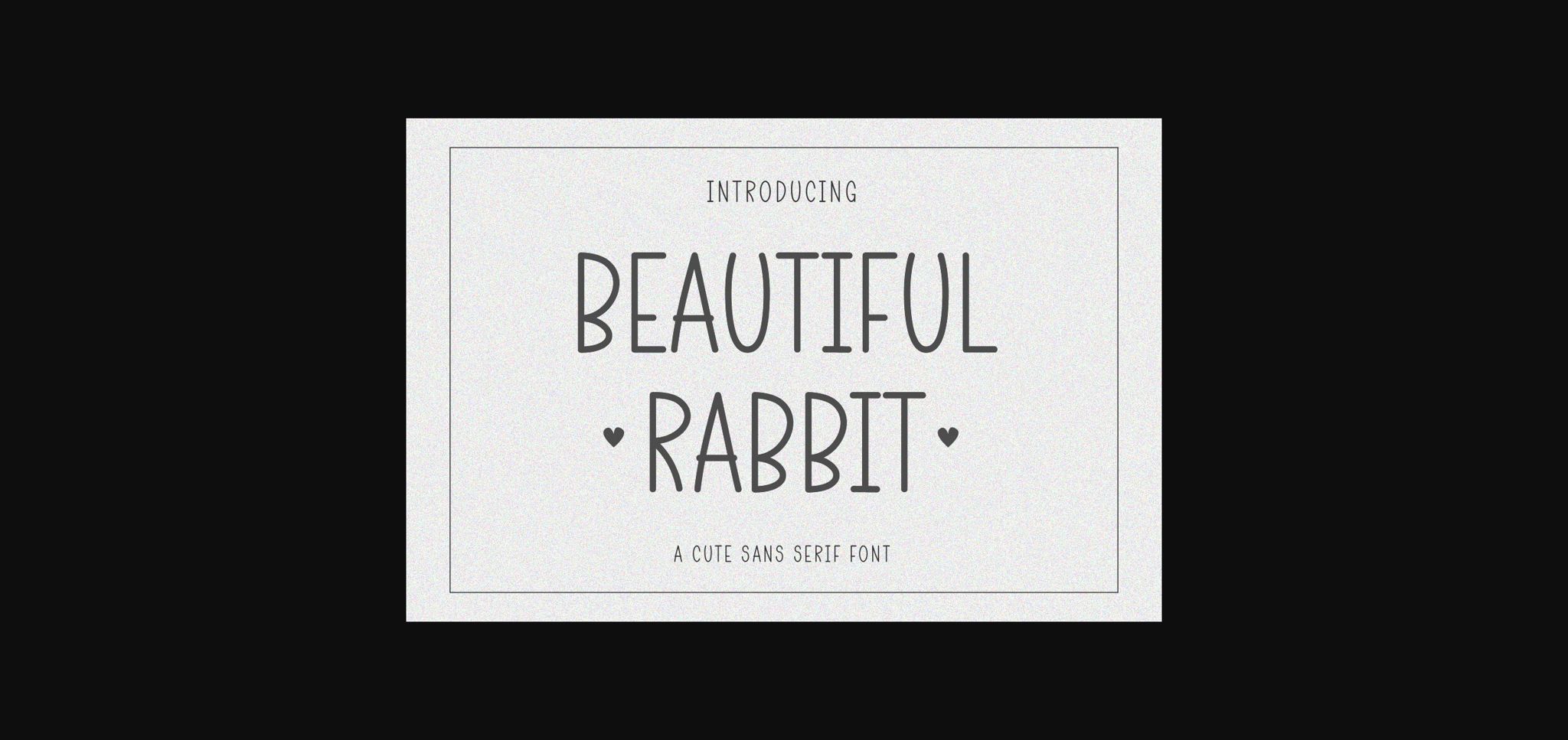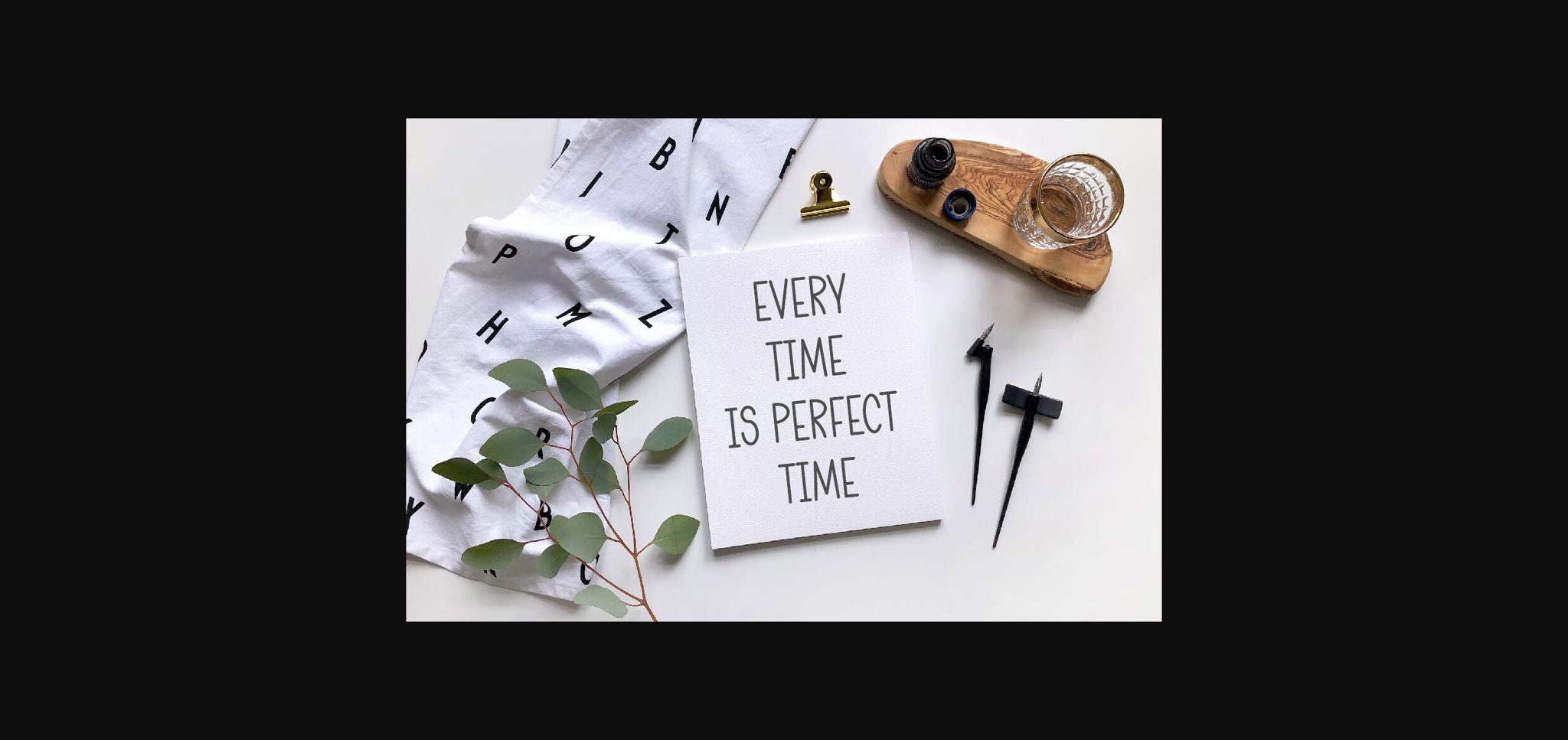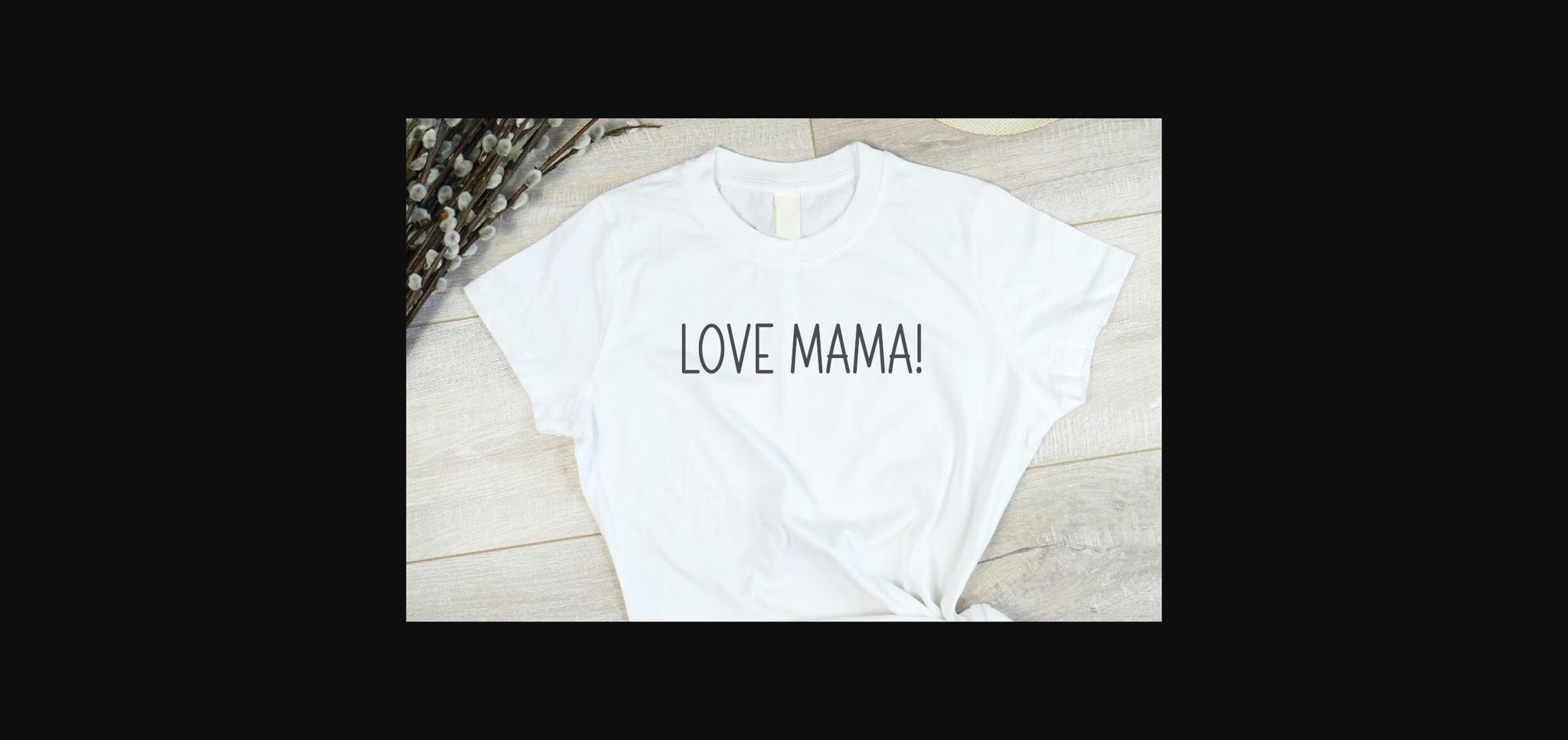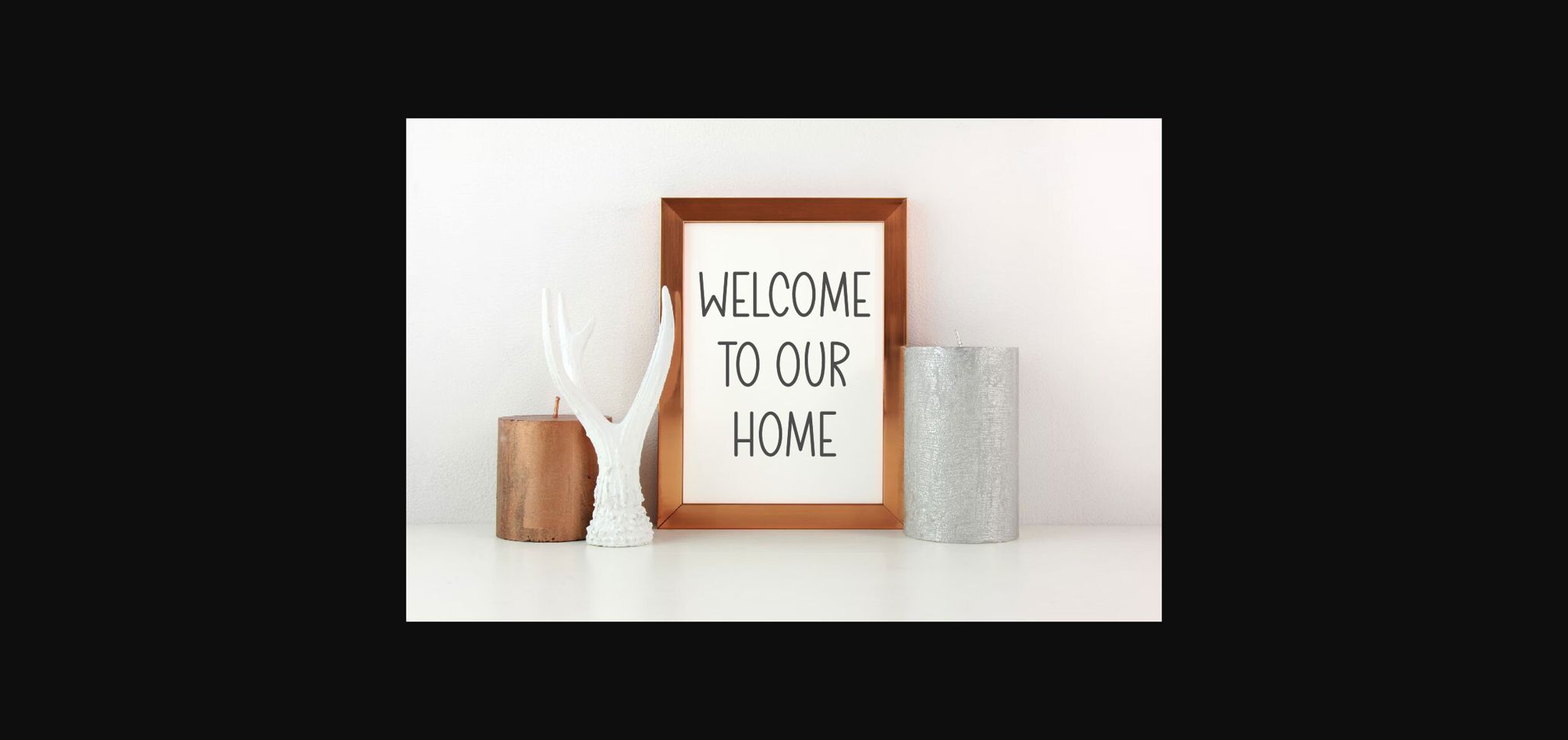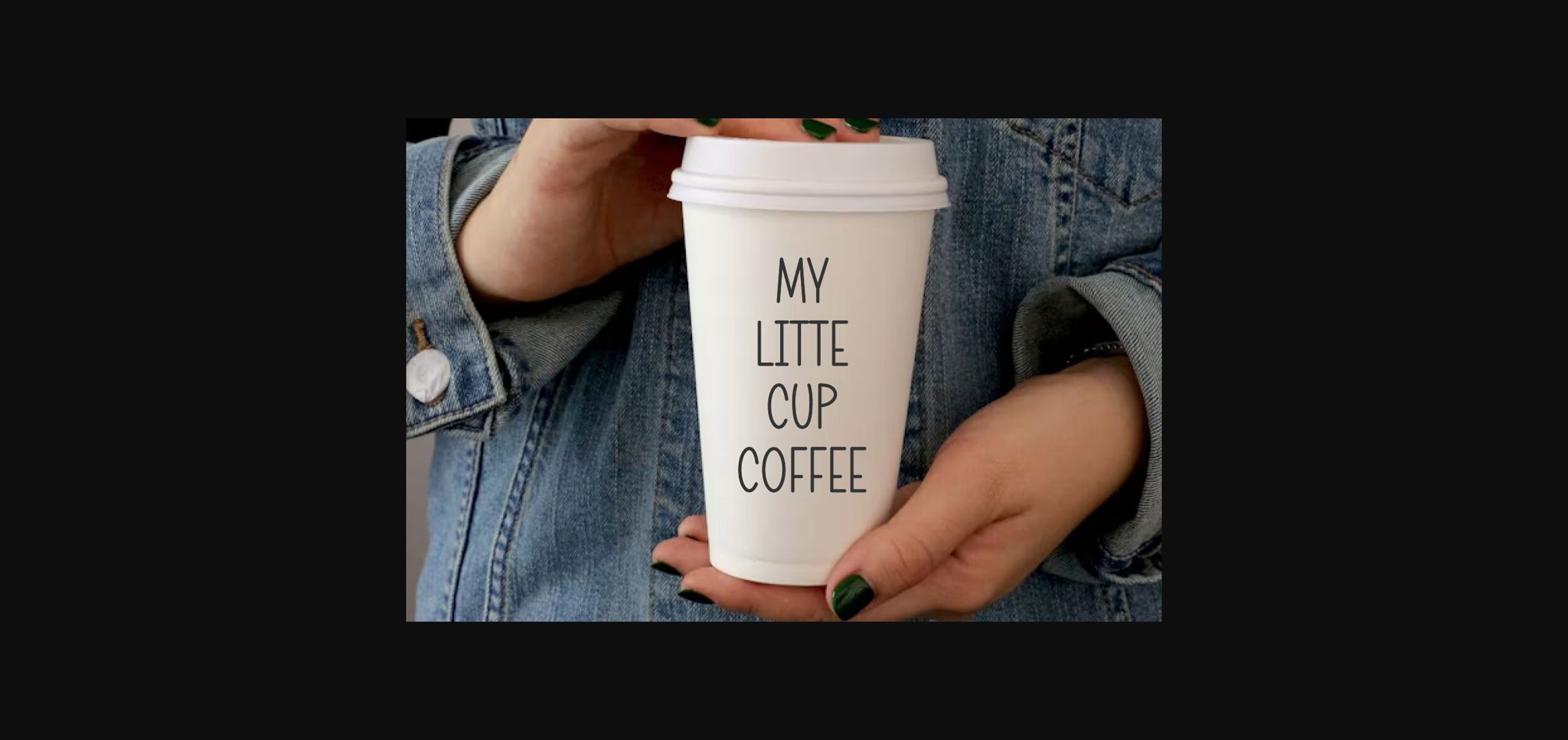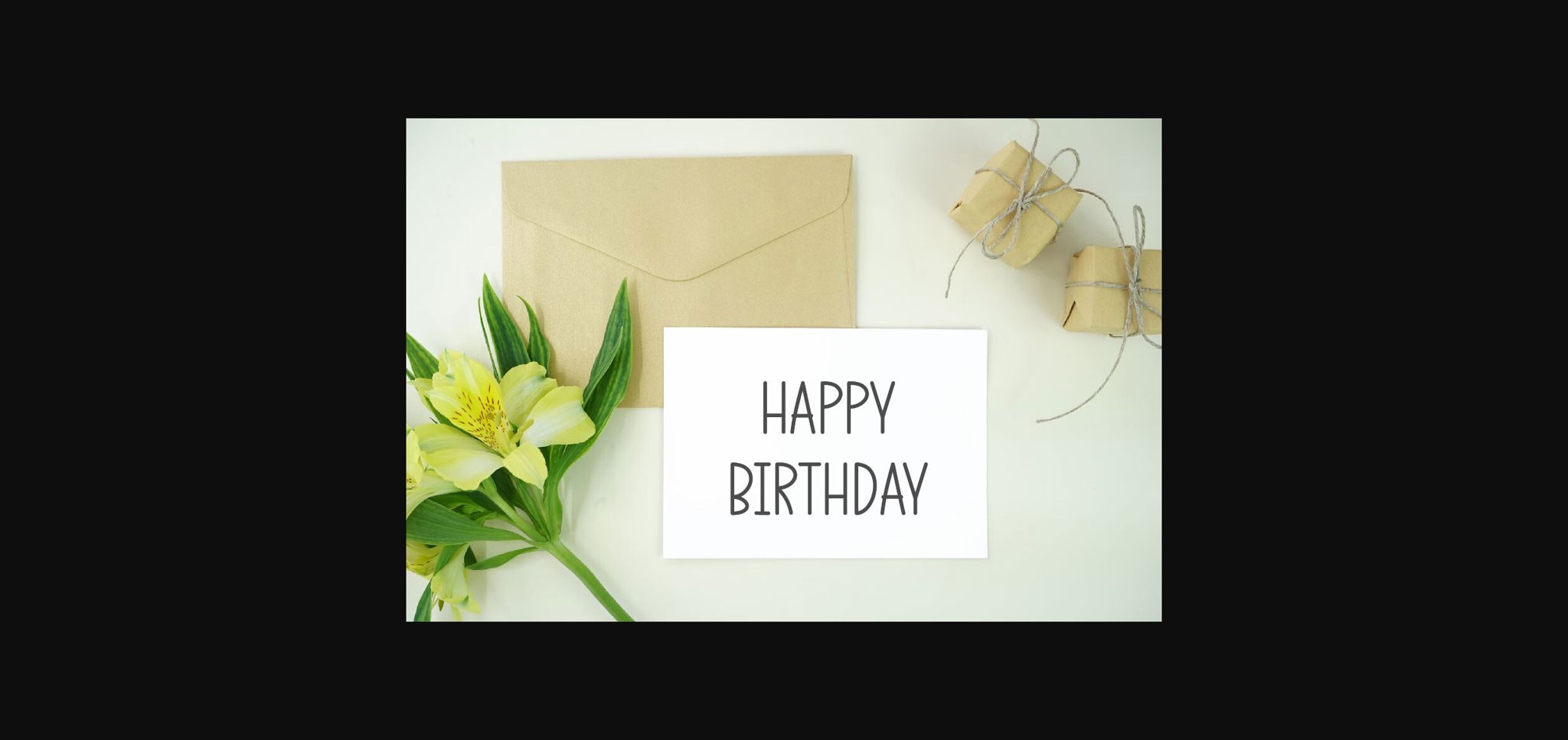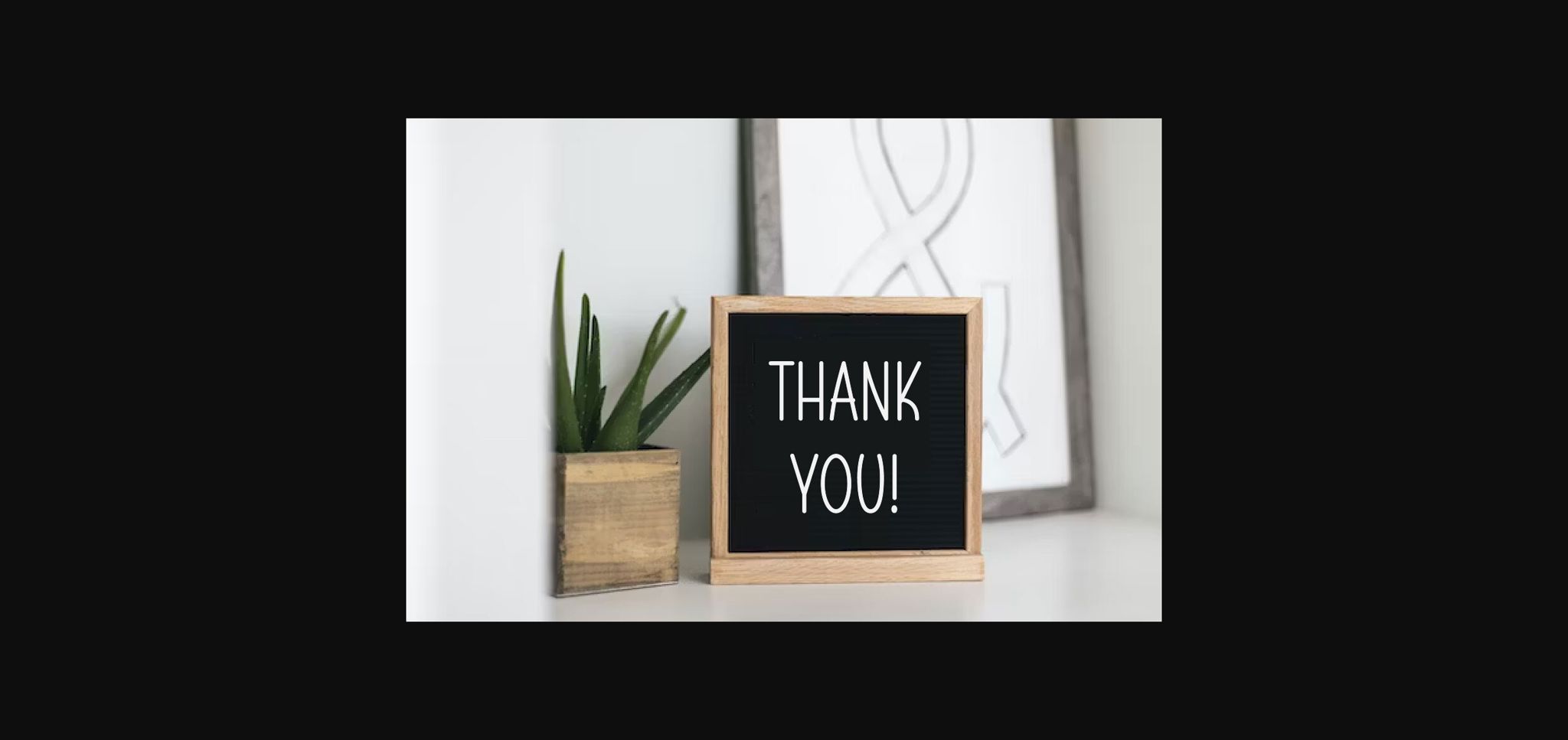
Beautiful Rabbit Font
About Beautiful Rabbit Font
Beautiful Rabbit is a cute and neat sans serif font that imbues an irresistible charm! Its adorable aesthetics make it ideal for creative crafts, enchanting wedding invitations, captivating cards, and dynamic blogging needs. From posters and quotes to branding endeavors, Beautiful Rabbit brings a delightful personal touch, transforming even mundane designs into mesmerizing visual experiences!